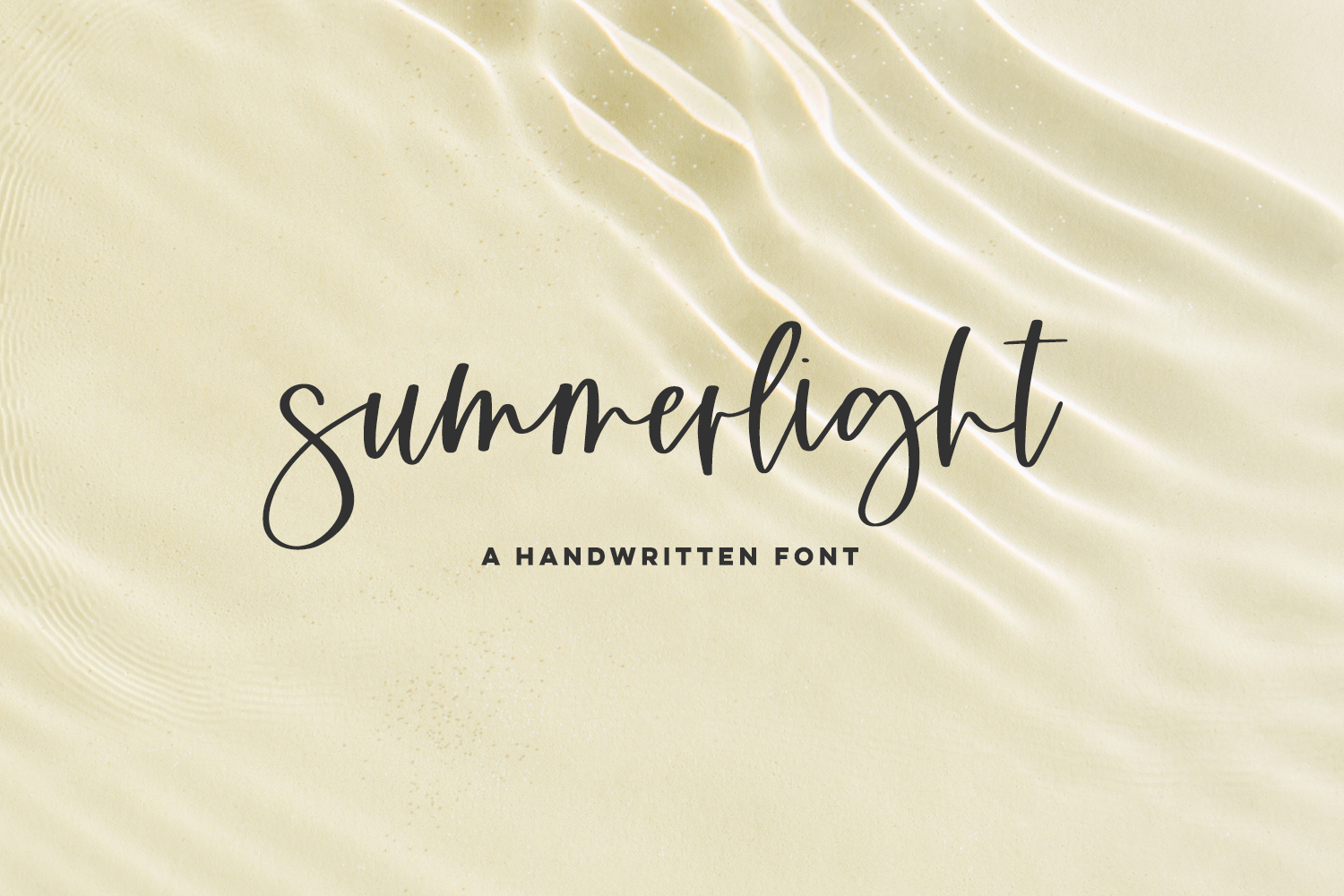
Introducing Summerlight Script, a handwritten signature style font. This stylish font features a messy, casual look with a slight bounce. It gives it a feminine appeal, and would be the perfect fit for a chic, modern beauty brand.
Summerlight Script is best for:
- website design + website accents - think design blogs, travel blogs, fashion blogs, & more
- 7 ligatures - gg, ll, mm, nn, oo, rr, tt